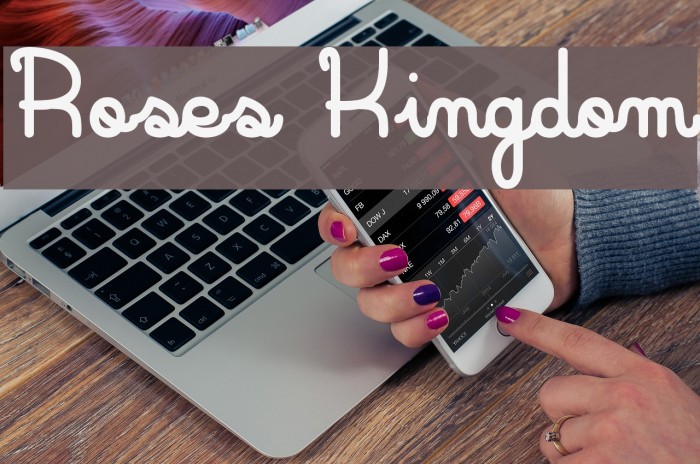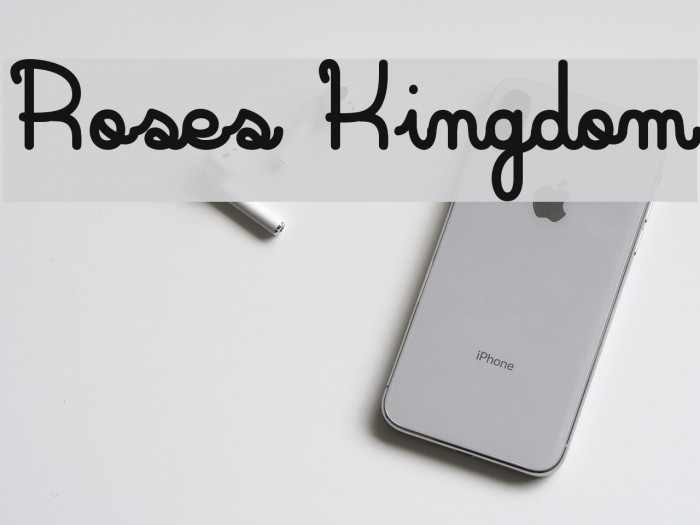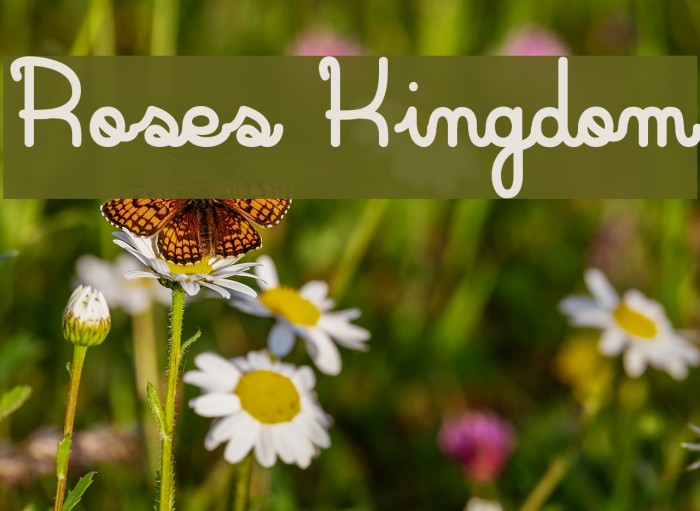
Roses Kingdom Font
This font features a playful and rounded style, combining elements of both script and sans-serif characteristics. The uppercase letters are clean and straightforward, with a slight curve that adds a friendly touch. The lowercase letters are more fluid and connected, resembling a casual handwriting style. Numbers and special characters maintain the rounded theme, ensuring consistency throughout. The overall appearance is approachable and versatile, suitable for a variety of design needs.
A playful, rounded font blending script and sans-serif styles.
- Proposed Projects: Ideal for children's books, playful branding, greeting cards, and casual invitations.
- Overall Style: Playful
- Use Case: Headlines, Logos, Invitations